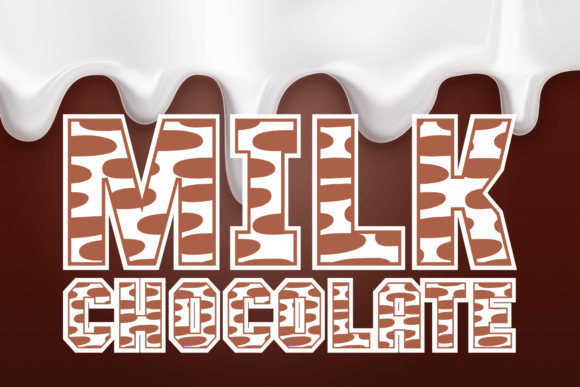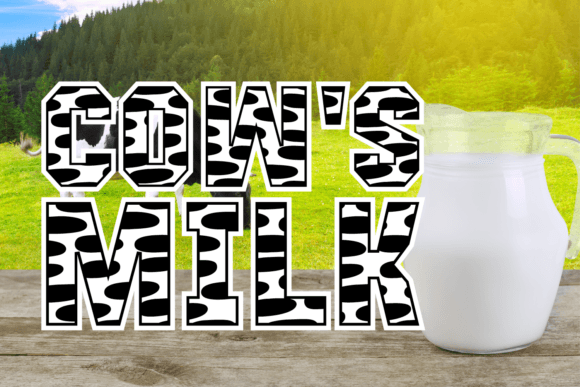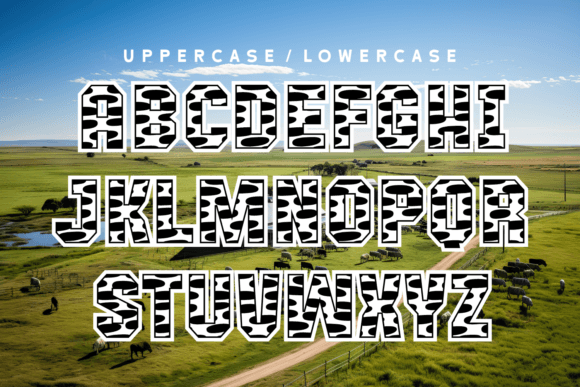
The Perfect Match for Playful Projects: Unleashing the Power of Brave Cow Font
Have you ever stared at a blank design canvas, struggling to find the perfect font to capture the essence of your project? I know I have. It’s that moment when inspiration strikes, and you suddenly envision a whimsical world of colorful characters and bold typography. For me, that moment led me to discover the delightful Brave Cow Font, a playful and charming typeface that’s about to become your new go-to choice for projects that require a lighthearted touch.
Brave Cow Font is more than just a pretty face – it’s a versatile tool that can be used for a wide range of design applications, from logos and branding materials to packaging and posters. Its unique visual style, featuring a distinctive cow pattern, adds a touch of personality and charm to any project, making it a valuable asset for designers looking to add some fun and flair to their work.
Brave Cow Font Key Features
- Font Family: Brave Cow is a unique, custom-designed font, making it ideal for businesses looking for a distinctive brand identity.
- Unique Characteristics: The font features a bold, modern design with a mix of geometric and organic elements, making it perfect for creating eye-catching headlines and titles.
Designer Review: Brave Cow Font
Overall, I think Brave Cow Font has some great qualities, but it also has some limitations that might make it less appealing to some designers.
- Unique and playful style: Brave Cow Font has a distinctive look that’s perfect for creating eye-catching headlines and titles.
- High-quality glyphs: The font includes a wide range of glyphs, including swashes and ligatures, which can add a touch of elegance to your designs.
- Flexible: Brave Cow Font comes in a variety of weights and styles, making it easy to use in a range of contexts.
- Limited legibility: In certain situations, the font’s unique style can make it difficult to read, especially at smaller sizes.
- Not suitable for body text: Brave Cow Font is best used for headings and titles, as its playful style can be overwhelming for large blocks of text.
- Not as versatile as other fonts: While Brave Cow Font is great for certain projects, it may not be the best choice for projects that require a more neutral or professional tone.
Brave Cow Font is a fun and creative option for designers who want to add some personality to their projects. However, it may not be the best choice for every project, and designers should be aware of its limitations before using it.
For best results, use the Brave Cow Font for headings and titles, as it is a bold and eye-catching font.
For best results, use the Brave Cow Font for titles, headings, and other emphasis text.
The Brave Cow Font is ideal for:
– Creating bold and eye-catching headings and titles.
– Adding a playful and whimsical touch to your designs.
– Making a statement and grabbing attention.
Remember to use the Brave Cow Font sparingly to avoid overwhelming your design.